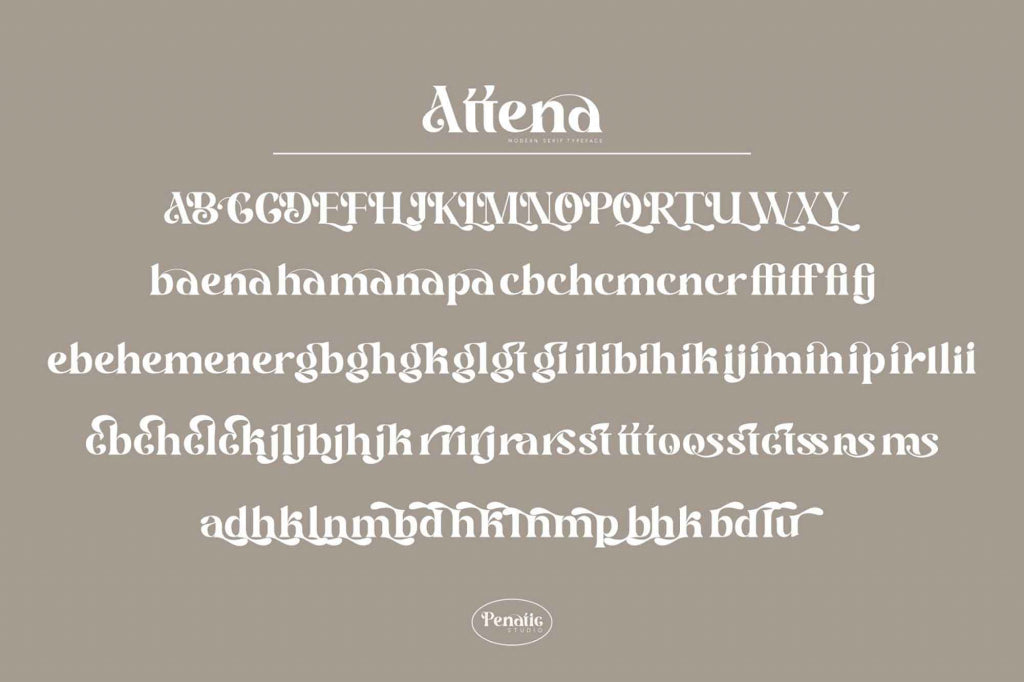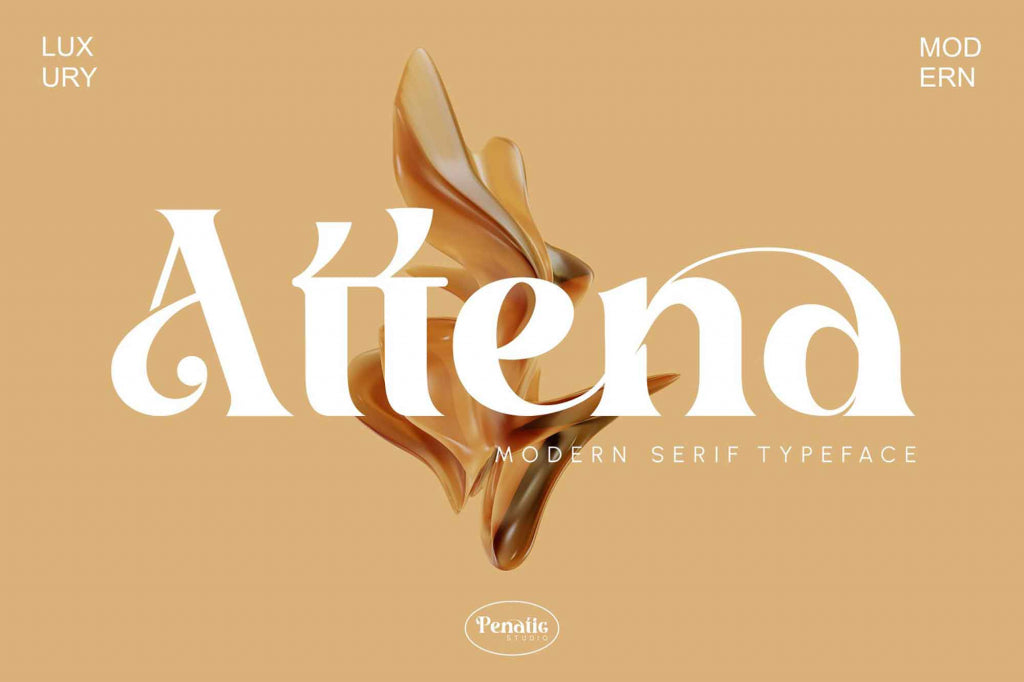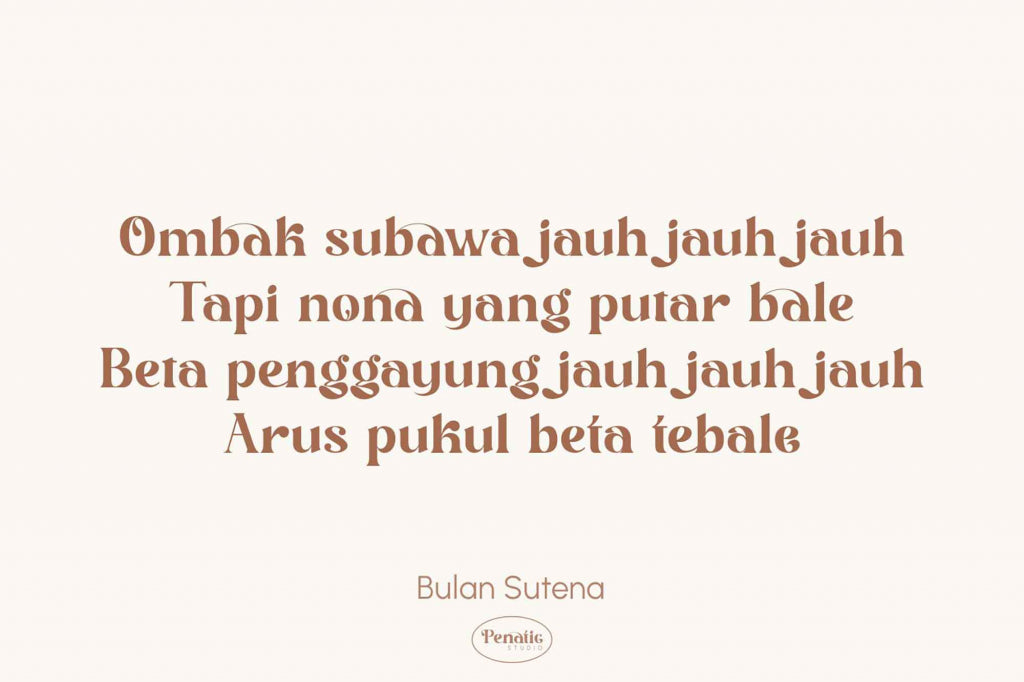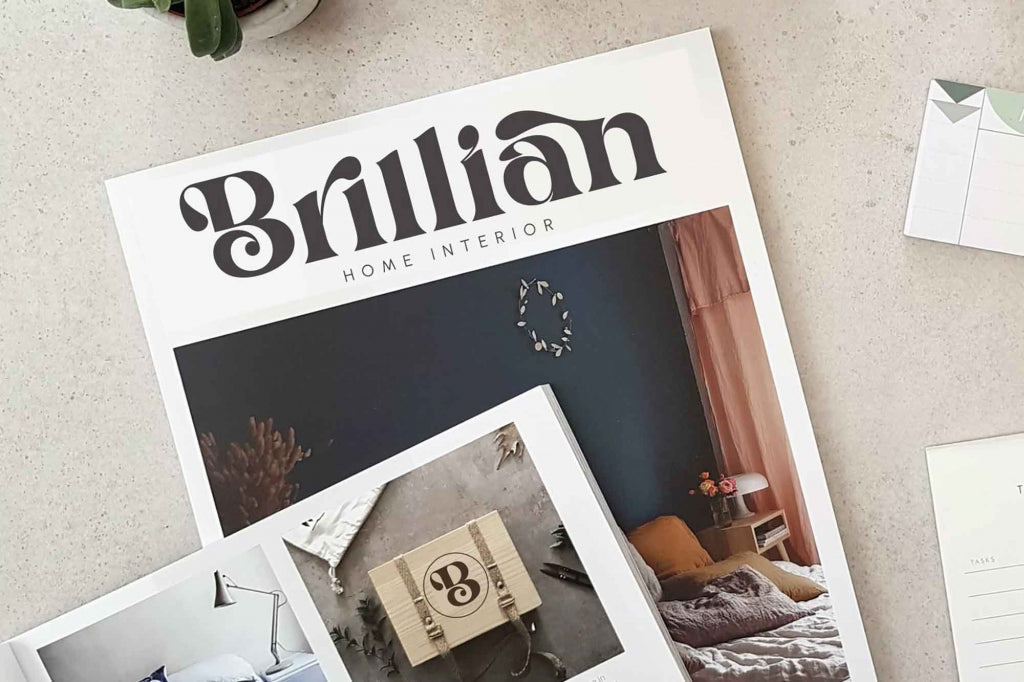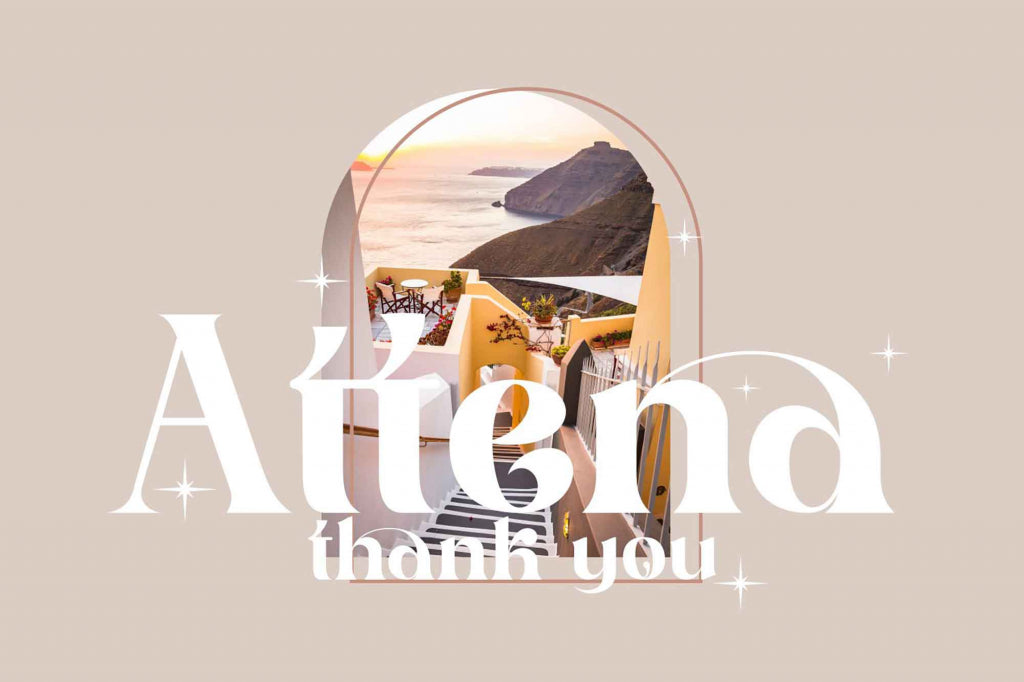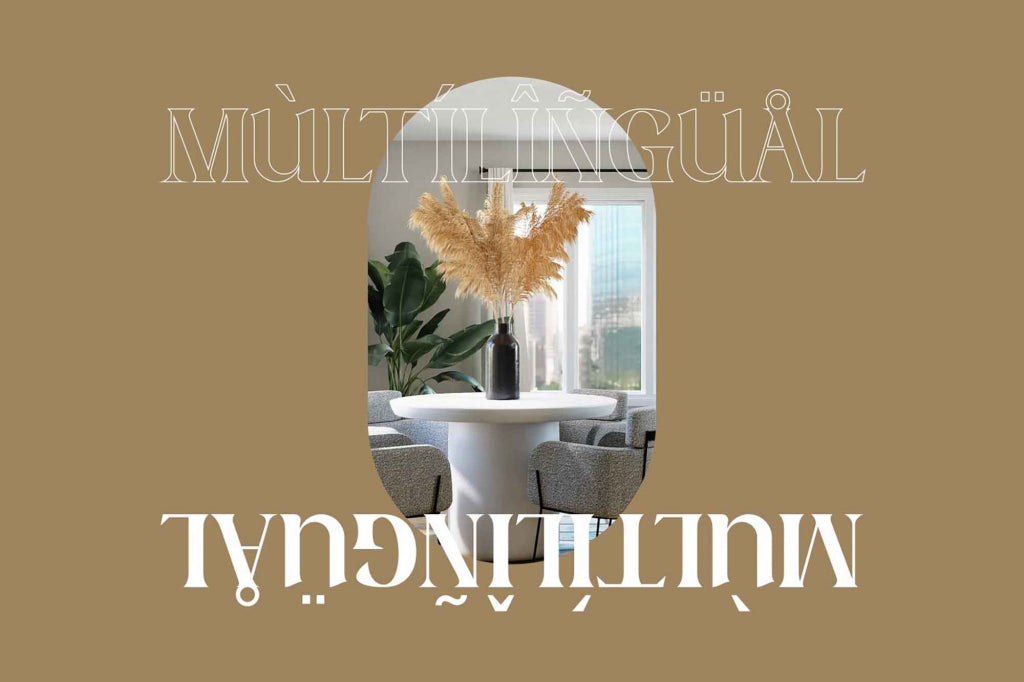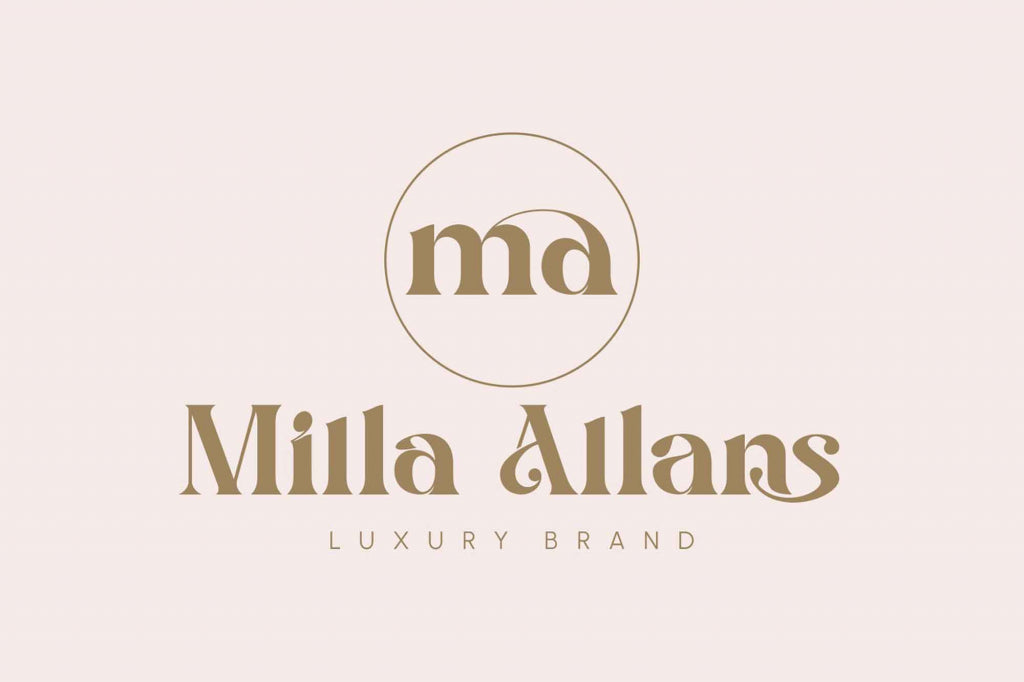
Attena is the kind of serif you would want to see in front of a women-oriented magazine or an exquisite lifestyle paper. With its unique font and modern touches, this font immediately grabs attention. Though it can be a dream style for feminine projects, this font can work well for all brand identity needs like invitation cards, greeting cards, poster designs, and whatnot.